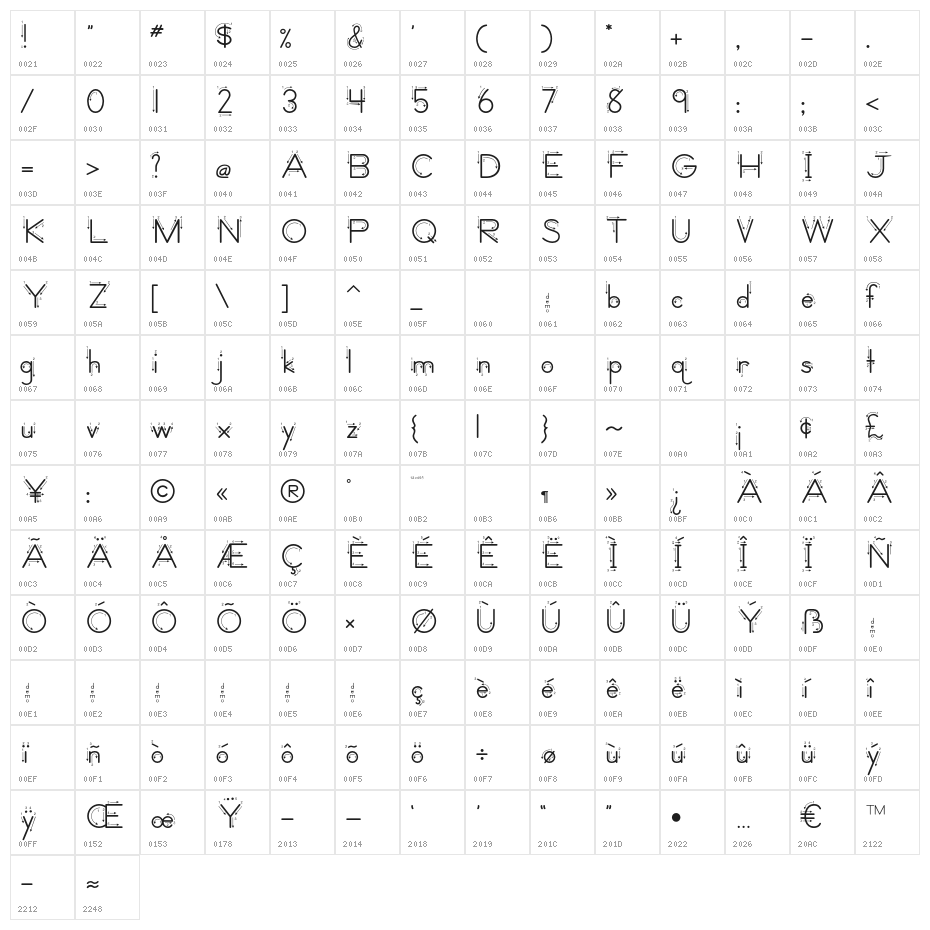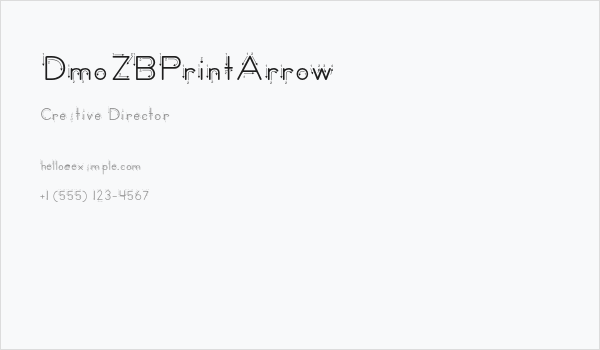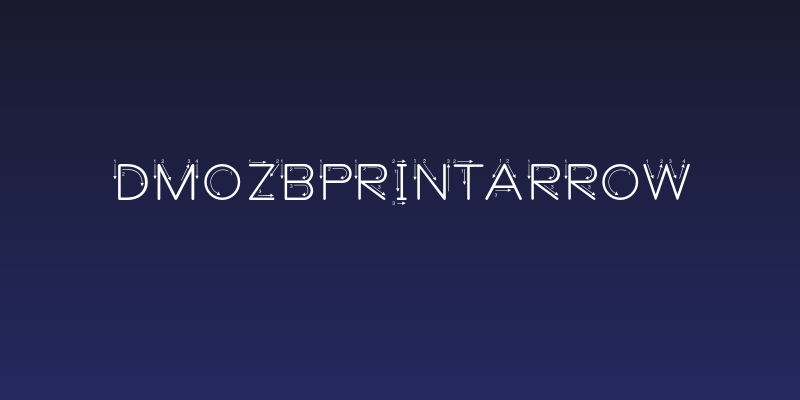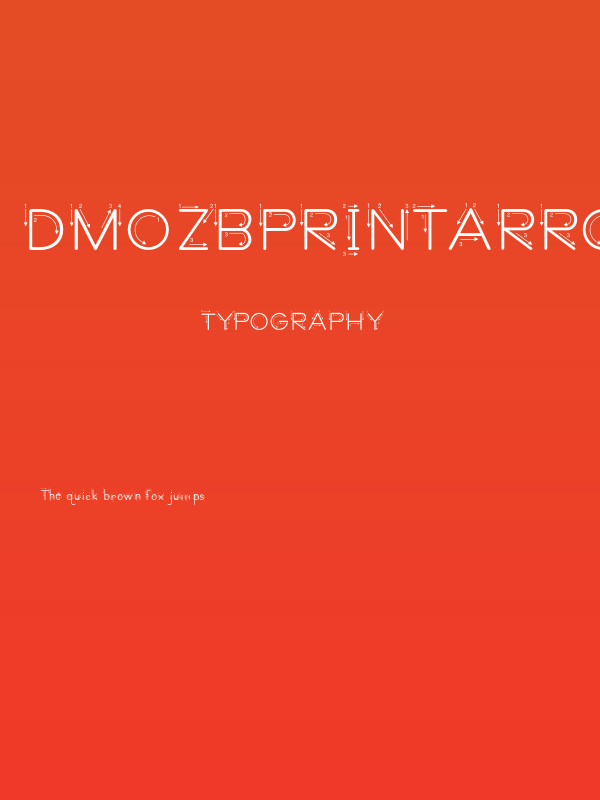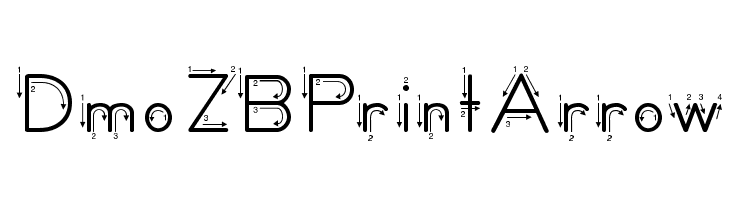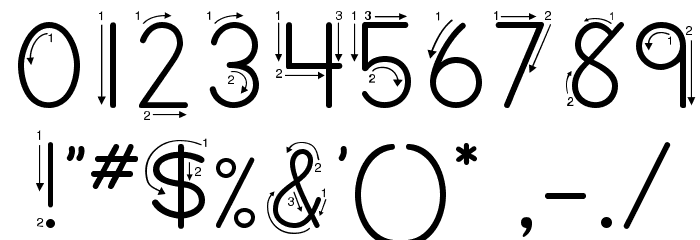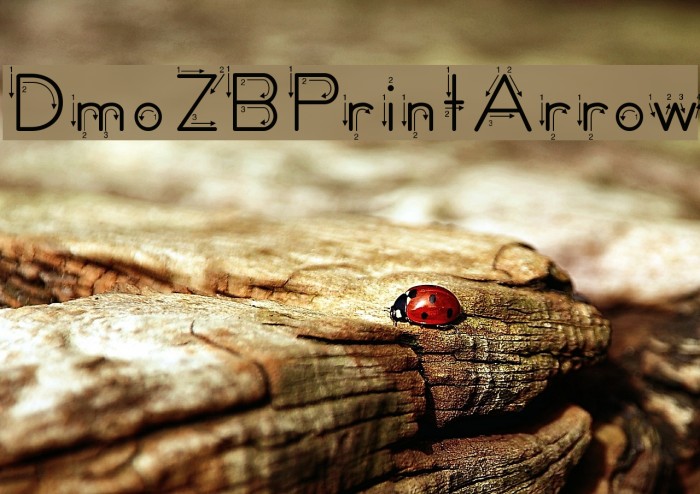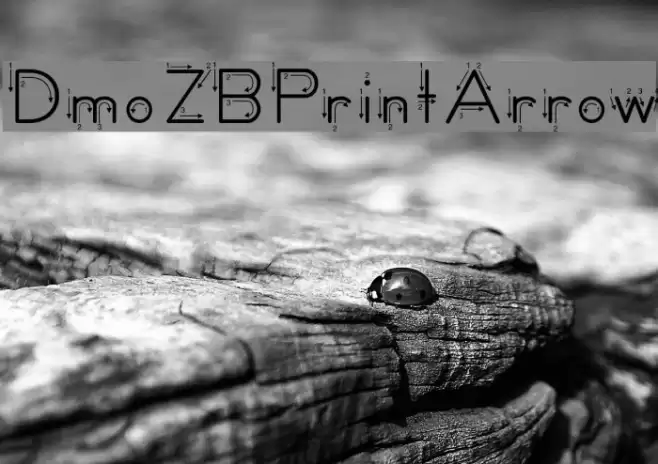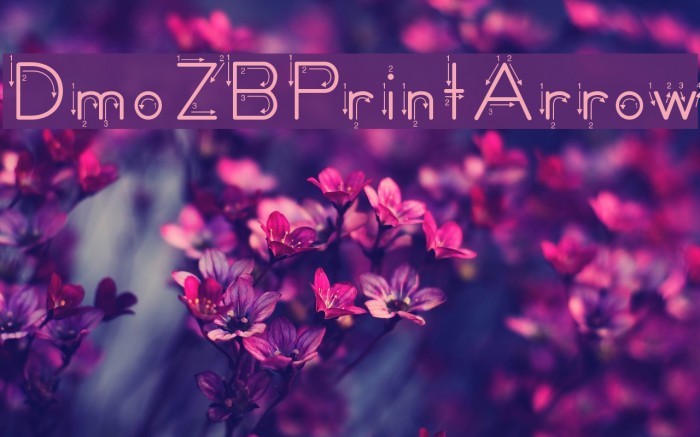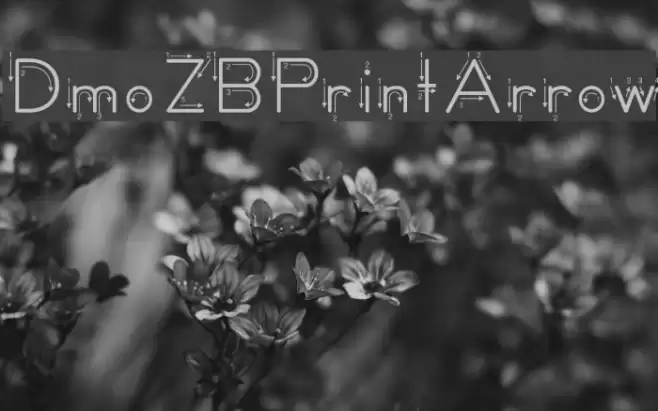
DmoZBPrintArrow Font
DmoZBPrintArrow Description
This font features a unique and playful design with arrows integrated into each character, providing a sense of direction and movement. The arrows are cleverly incorporated, maintaining legibility while adding a decorative touch. The characters are primarily uppercase and lowercase letters, along with numbers and a selection of special characters. The overall appearance is modern and quirky, making it suitable for creative and informal projects. The font's distinct style can add a dynamic and engaging element to any design.
| Proposed Projects | Ideal for creative projects such as posters, children's books, educational materials, and playful branding. |